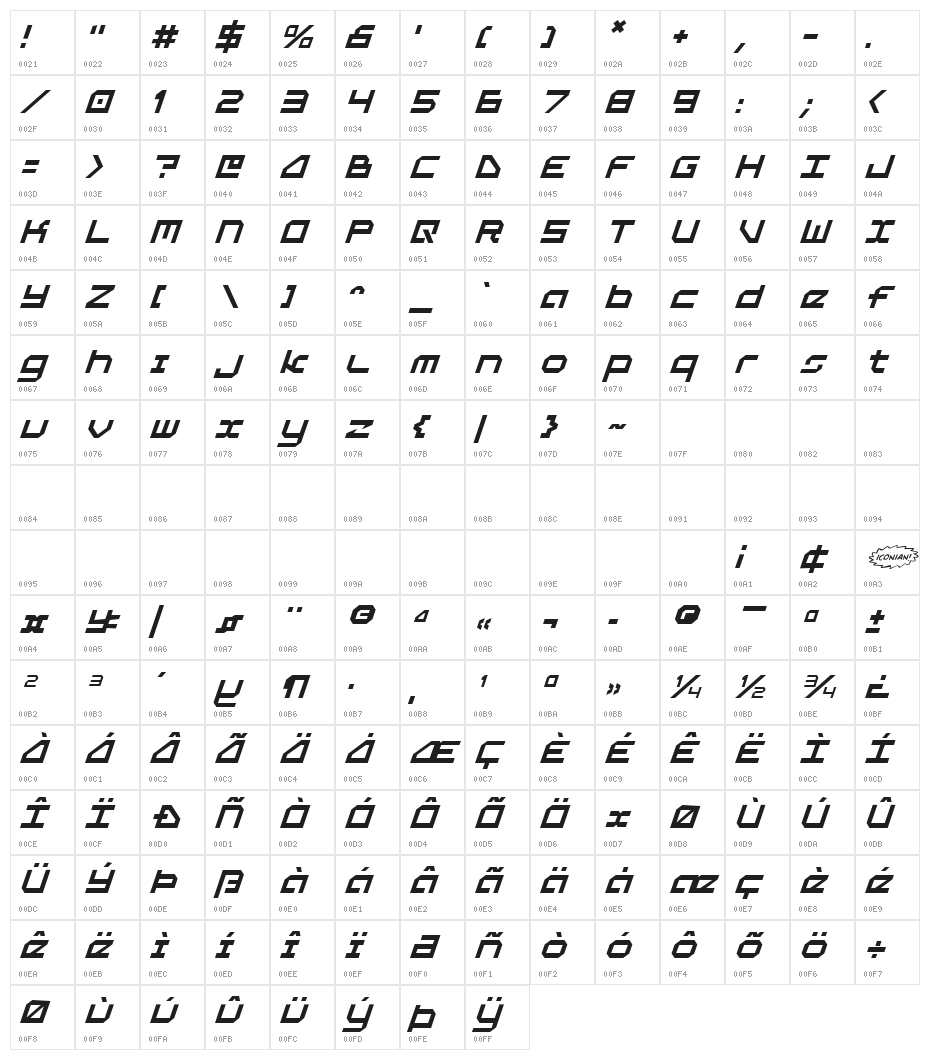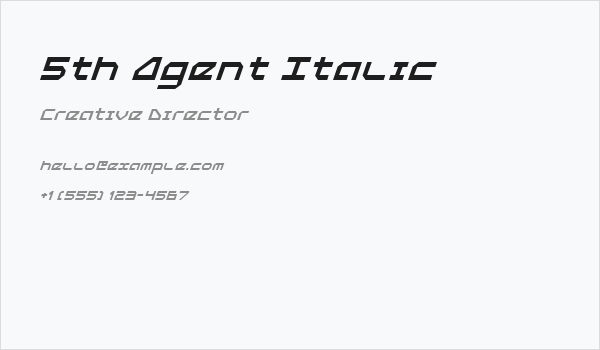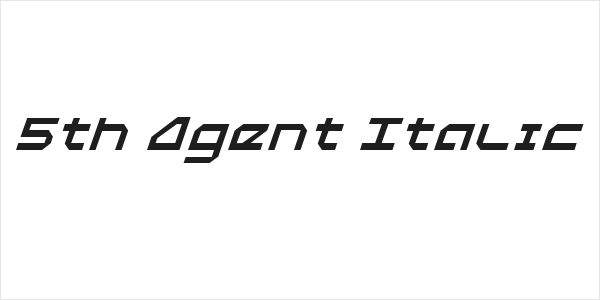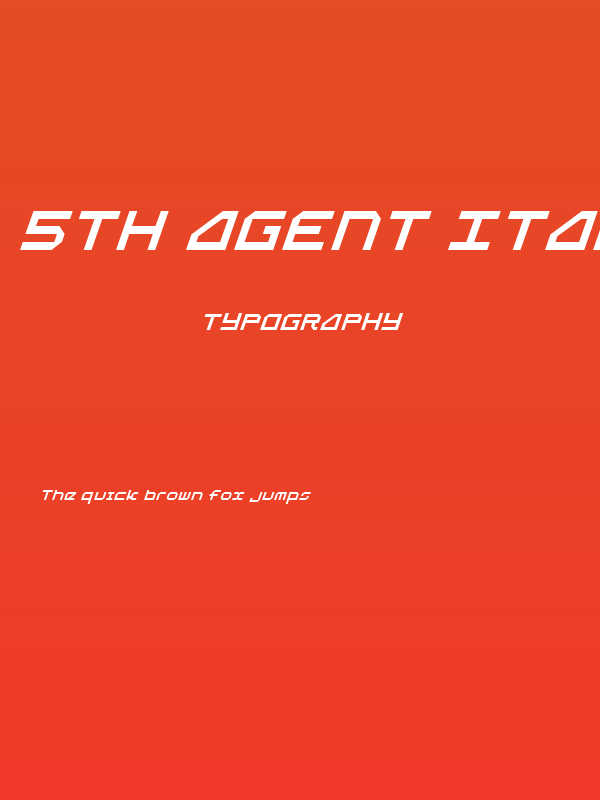
5th Agent Italic Font
5th Agent Italic Description
This font features a bold and futuristic design with a distinct italic slant, giving it a dynamic and forward-moving appearance. The characters are geometric and angular, with sharp edges and a consistent stroke width that conveys a sense of precision and modernity. The uppercase and lowercase letters maintain a uniform style, while the numerals and special characters integrate seamlessly with the overall design. The font's structure is clean and uncluttered, making it suitable for projects that require a contemporary and tech-oriented aesthetic.
| Proposed Projects | Ideal for technology branding, sci-fi movie posters, video game titles, and modern advertising campaigns. |